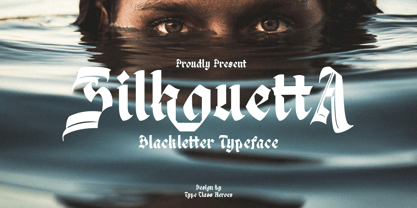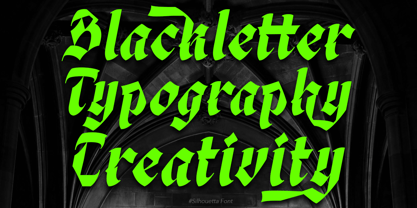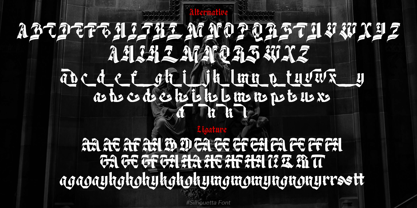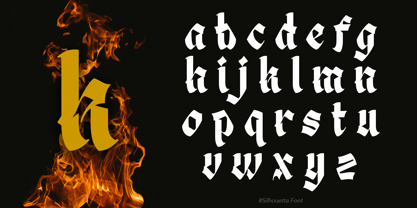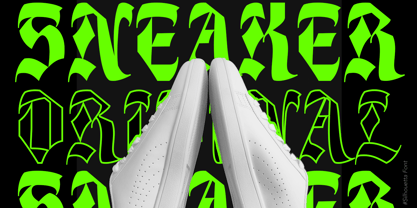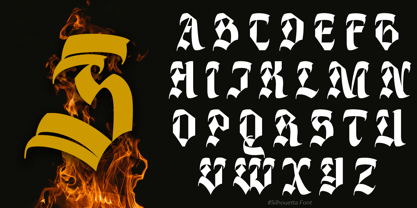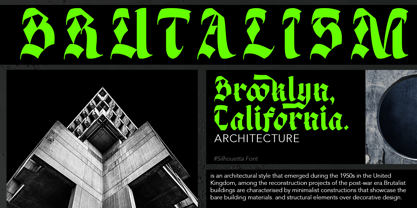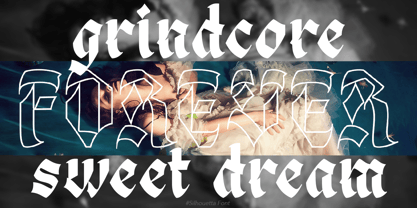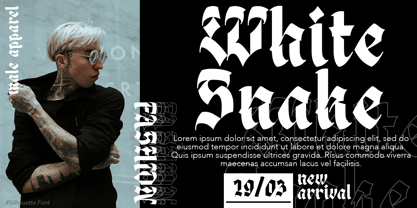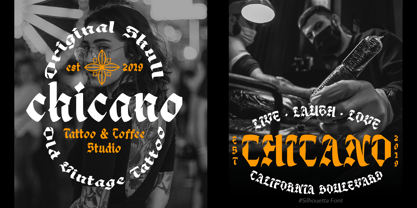
Silhouetta
by TypeClassHeroes
The Silhouetta Font Family was designed by Suandana ipandemade and published by TypeClassHeroes. Silhouetta contains 1 styles. More about this family
Hello, I'm really excited to introduce Silhouetta Blackletter typeface designed to become a strong font, this font has the potential to bring each of your creative ideas to the highest level. Come with different style combine with ligatures and special alternative glyphs so you can create a lot with layouts and compositions.
Silhouetta brings a touch of luxury and bespoke custom typography suitable for merchandise, clothing, apparel, badges, logos, poster titles, and much more.